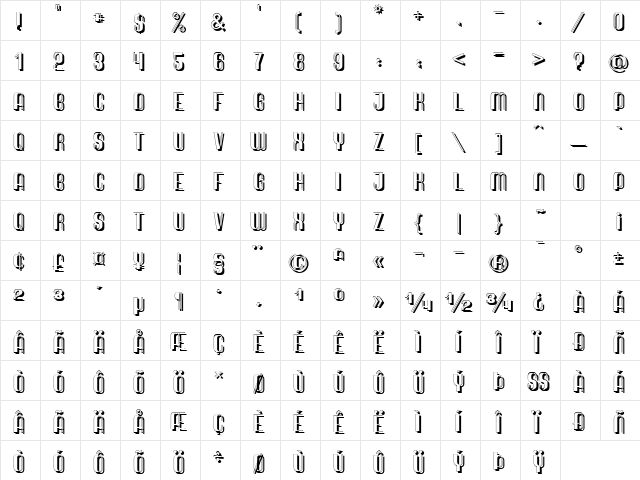
Quimbie Shaddow Regular
| Foundry | CAT - Ing. Peter Wiegel. Wolgast |
| Designer | Peter Wiegel |
Design Context for Quimbie Shaddow Typeface
Quimbie Shaddow is a composed and adaptable typeface that performs quietly and consistently across a wide range of design contexts.